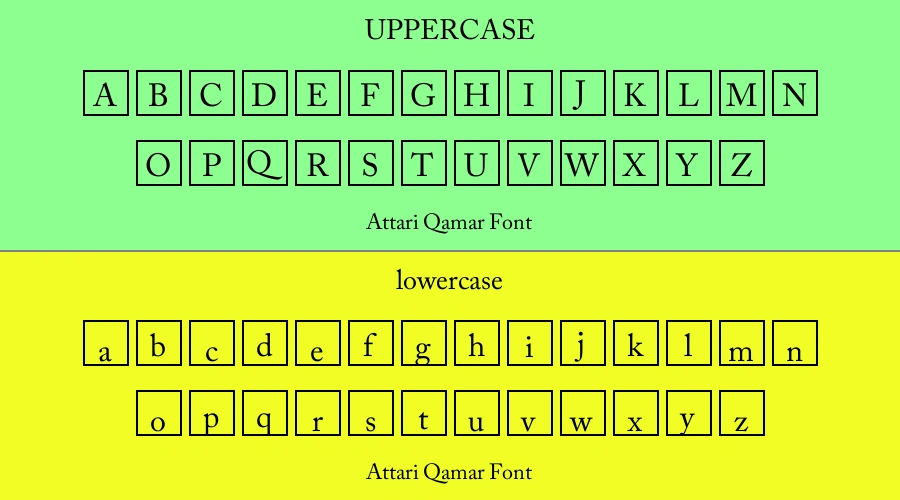
About Attari Qamar Font
Attari Qamar Font stands out for its distinctive combination of decorative alternates and versatility. Ideal for product naming, it provides the scalability and artistic value that professional projects demand. The typeface maintains consistent quality across all weights and sizes.
Key features include refined calligraphic influence and practical arrow sets, enhancing typographic expression. In research articles applications, Attari Qamar Font demonstrates exceptional language switching. The proportion and engineering heritage contribute to its distinctive character and professional appeal.